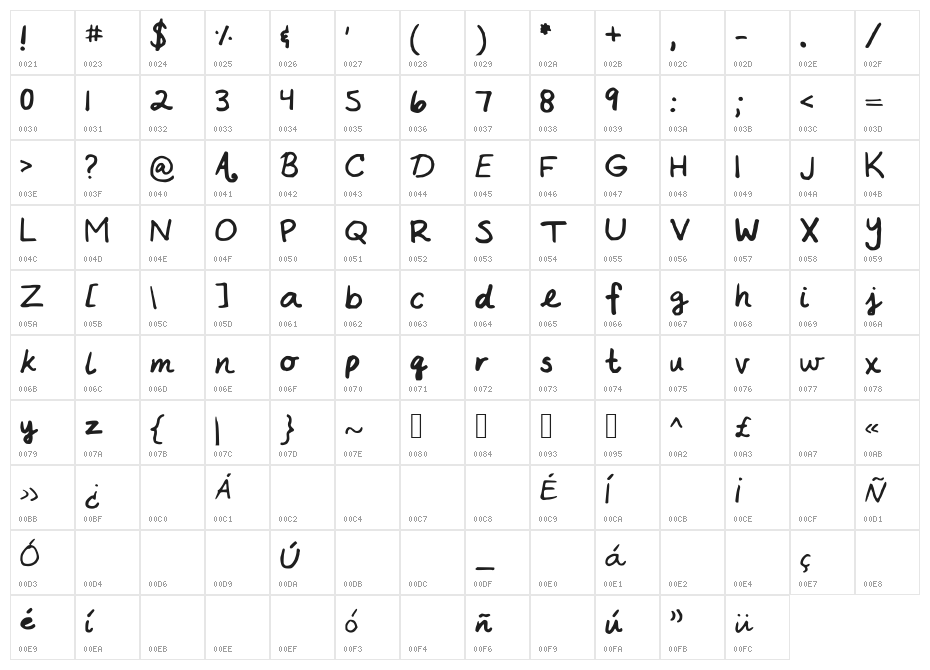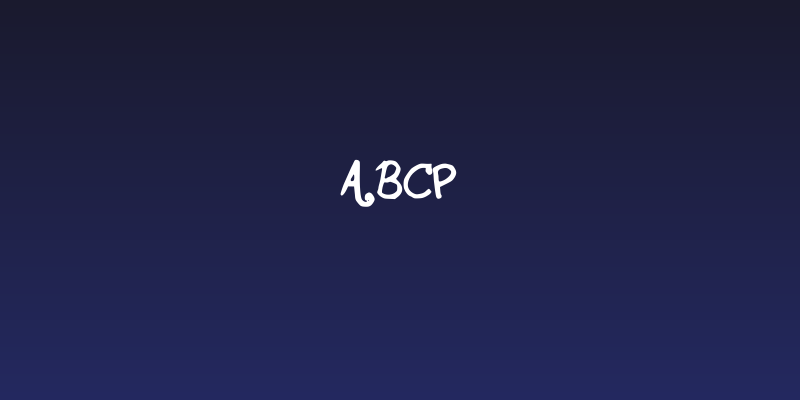
ABCP Font
ABCP Description
This font features a playful and casual handwritten style, characterized by its smooth curves and slightly irregular strokes. The letters have a natural flow, giving an informal and friendly appearance. The uppercase and lowercase letters maintain a consistent style, with rounded edges and a slight slant that adds to the handwritten feel. The numerals and special characters are designed to match the overall aesthetic, ensuring a cohesive look across all text. This font is ideal for projects that require a personal touch, such as invitations, greeting cards, or creative branding.
| Proposed Projects | Ideal for invitations, greeting cards, creative branding, and personal projects. |